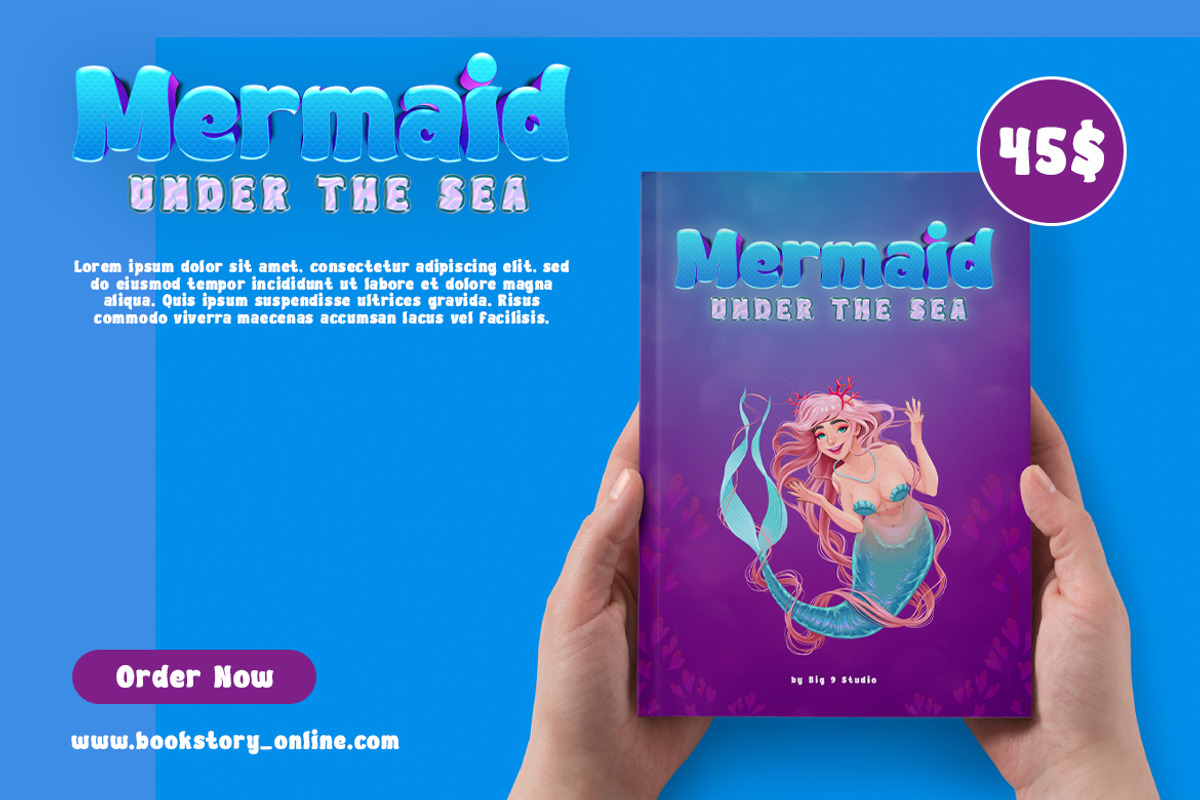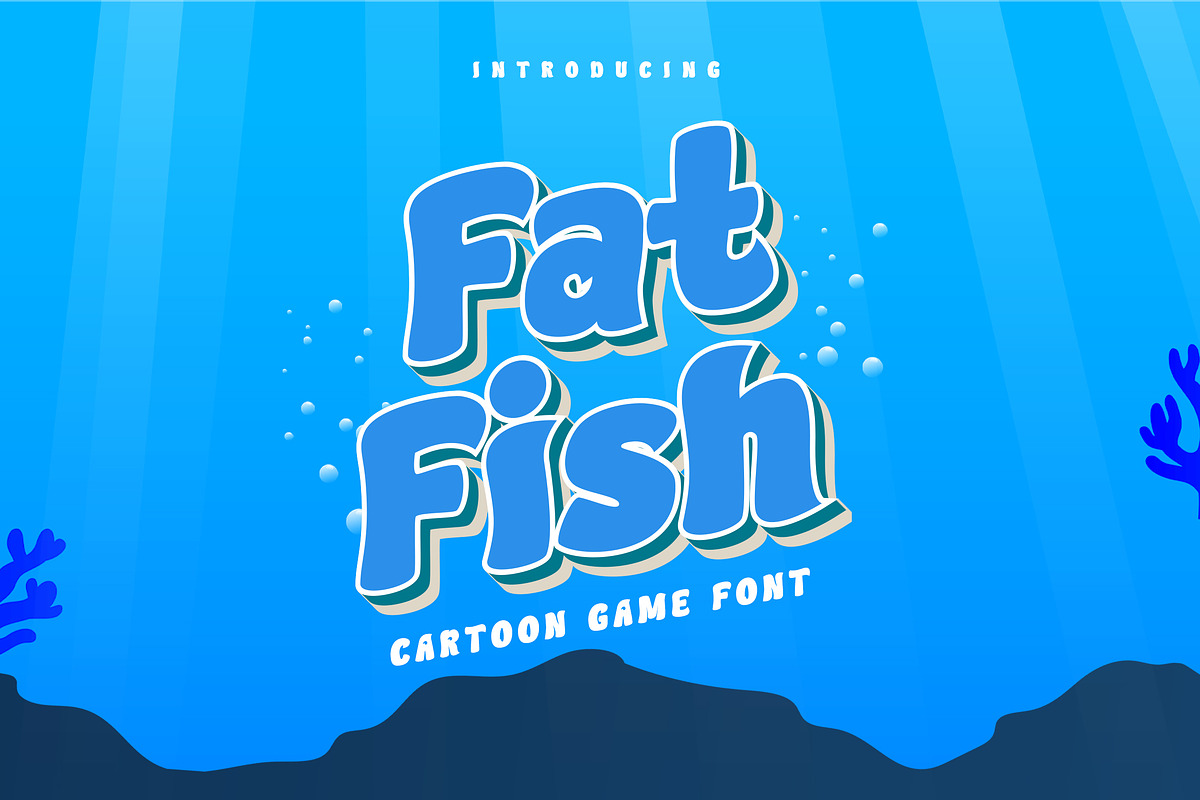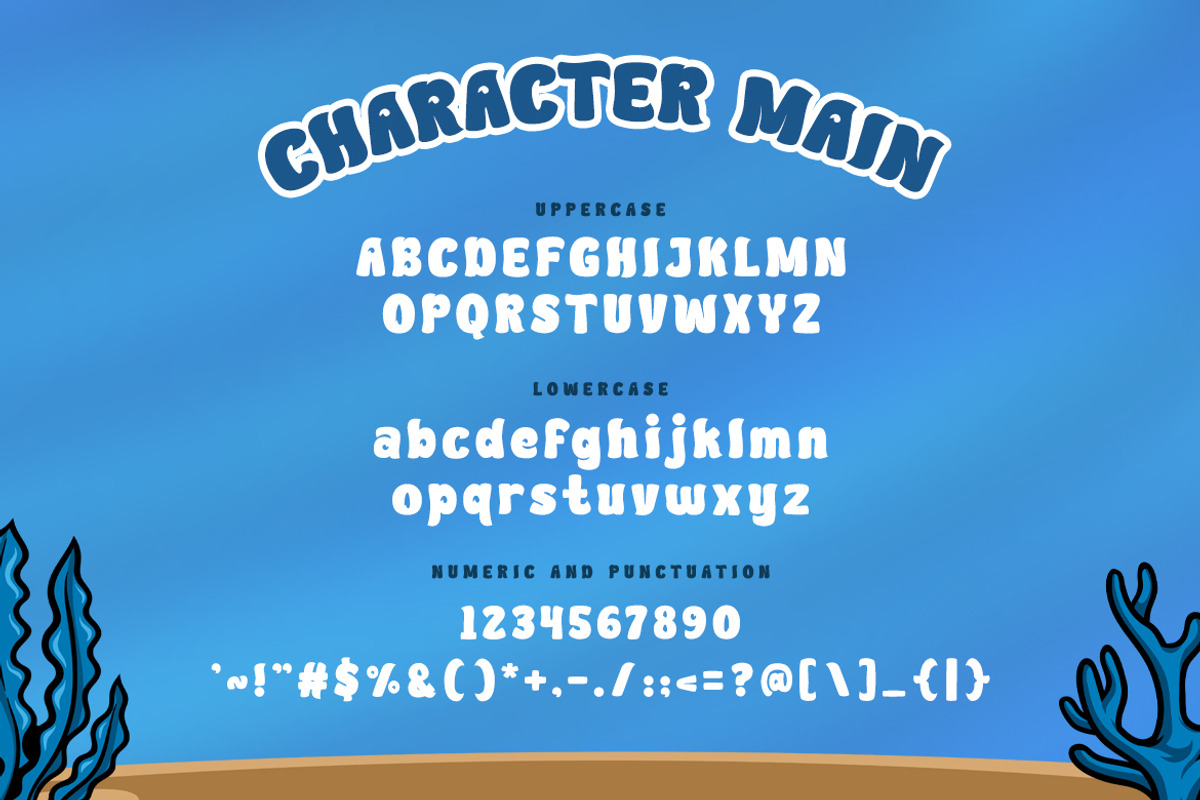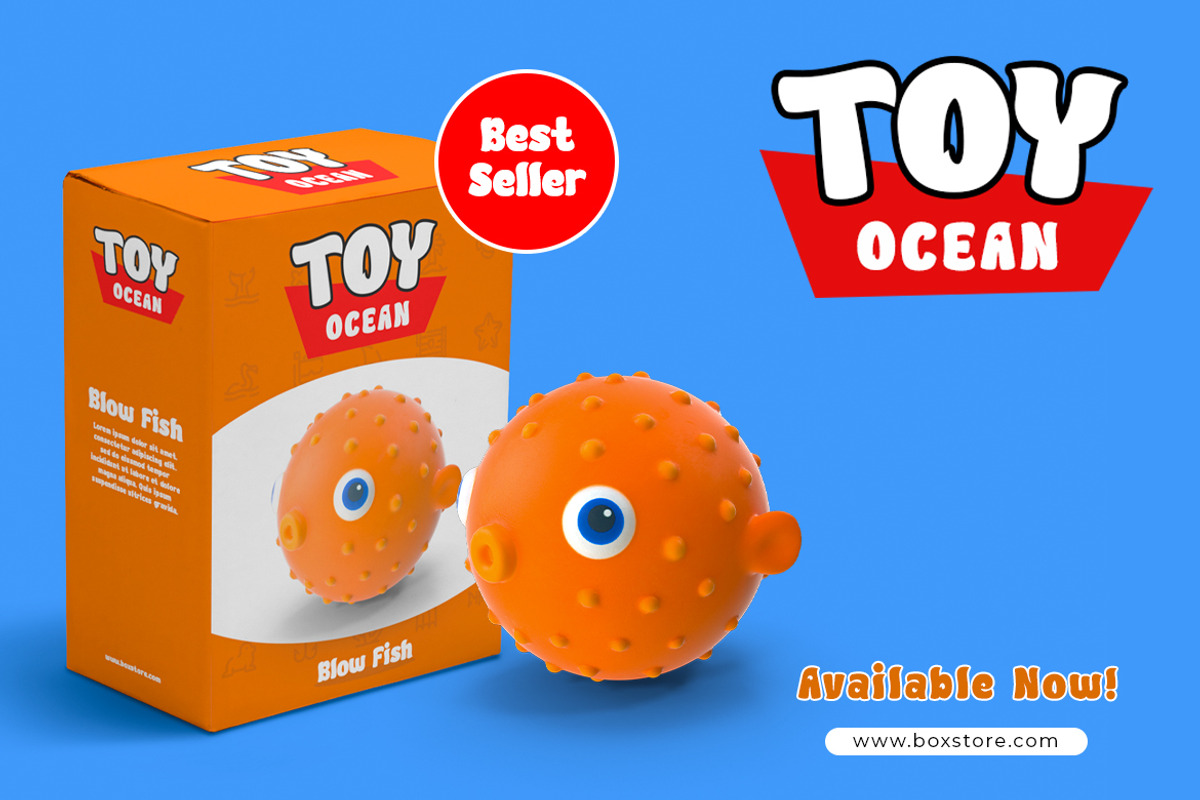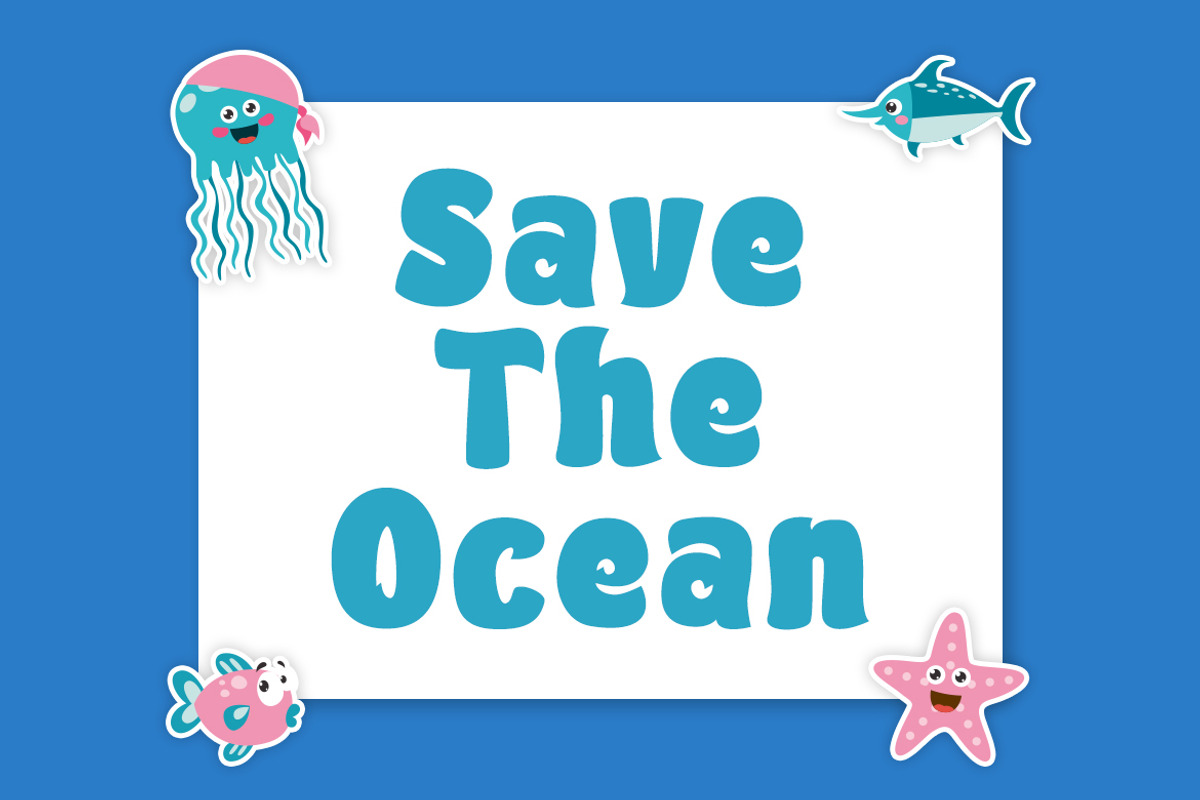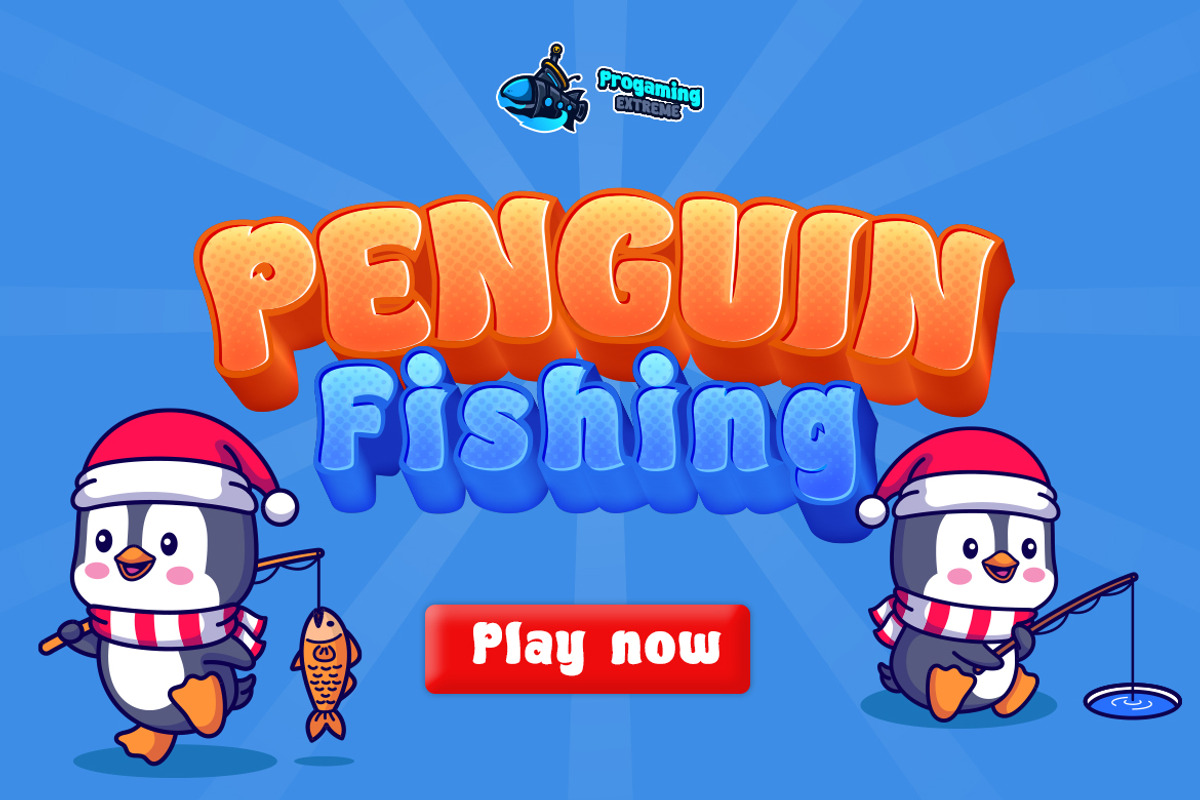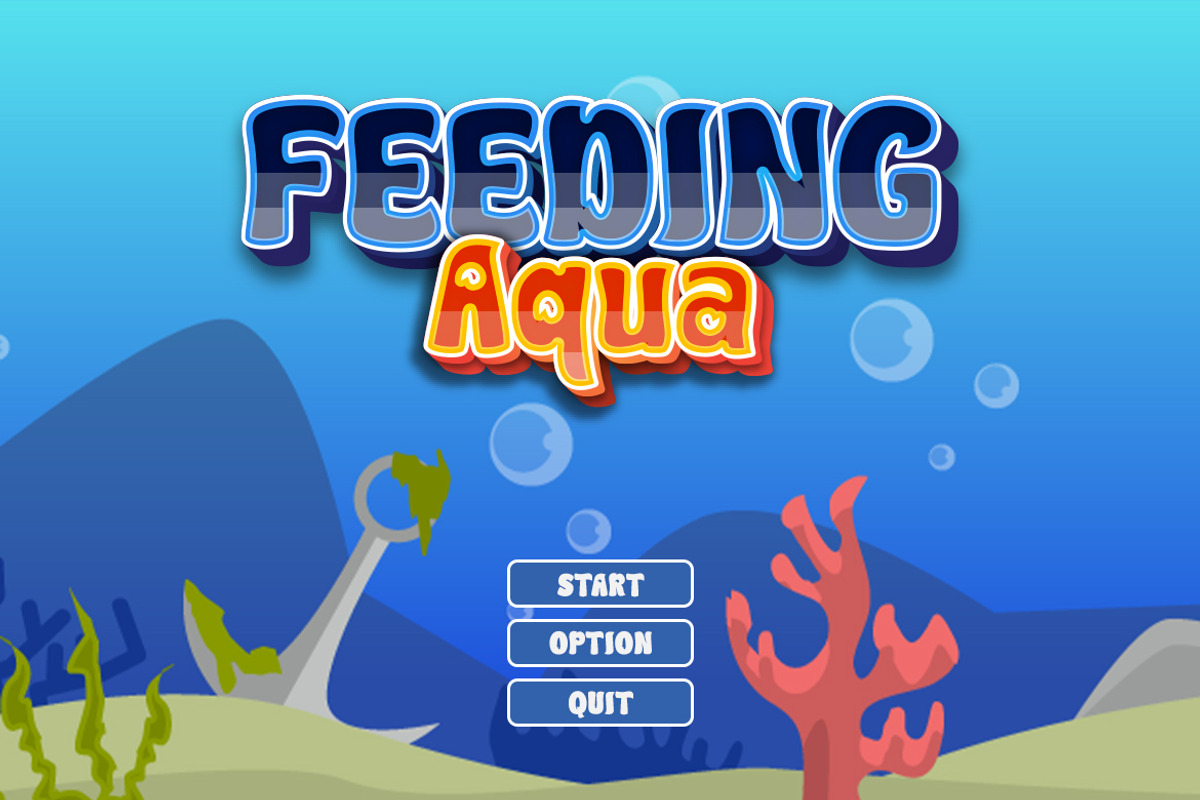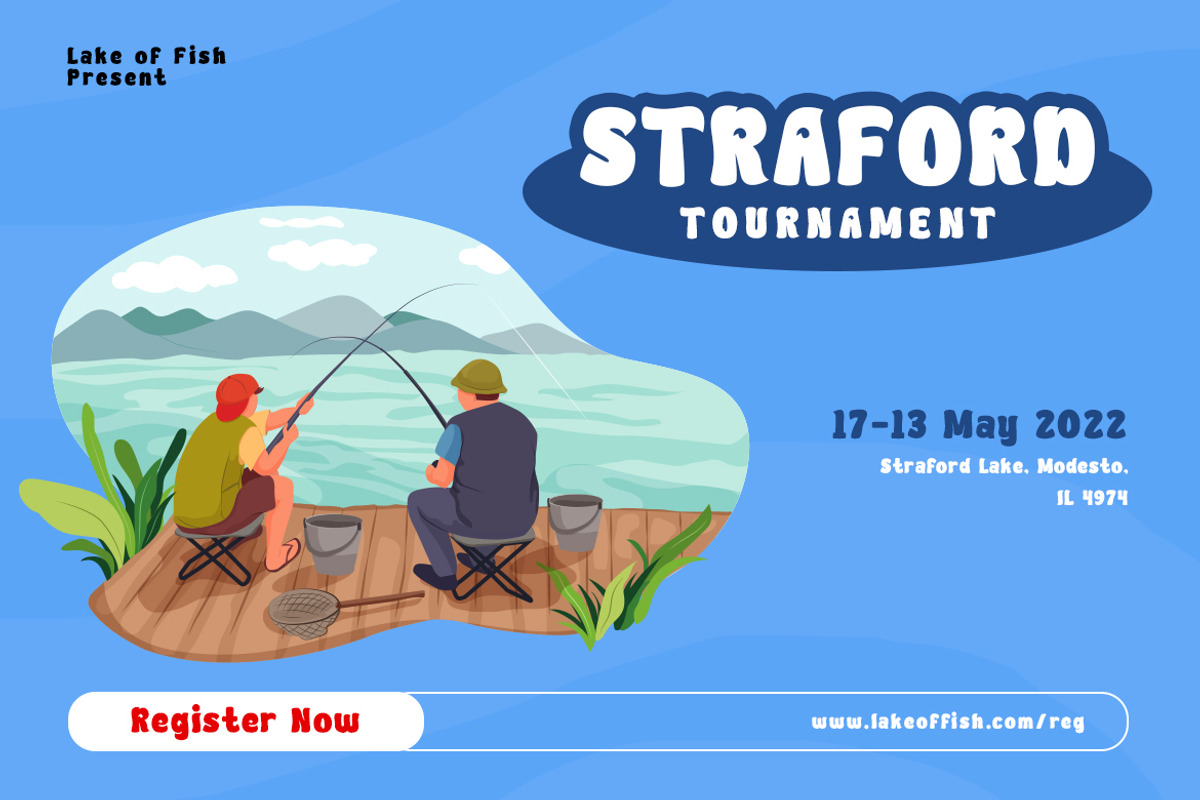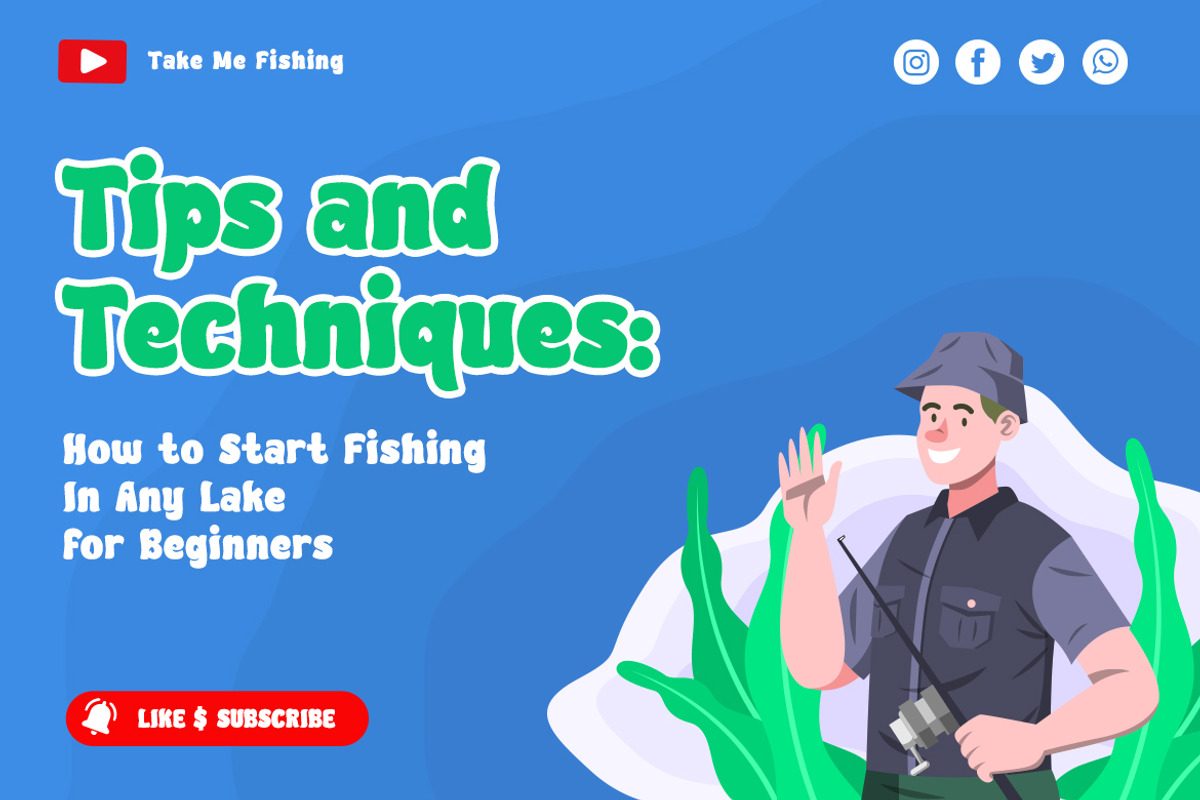
Fat Fish - Cartoon Gaming Font
Fat Fish – Cartoon Gaming Font
Bold and cute, also giving a perfect read ability in a formal vibes, but still bring a fun twist in it.
Suit perfect for children books market, online games, teens event posters, school supplies font, posters, movie titles, youtube covers, youtube thumbnails, social media page covers, and so on...